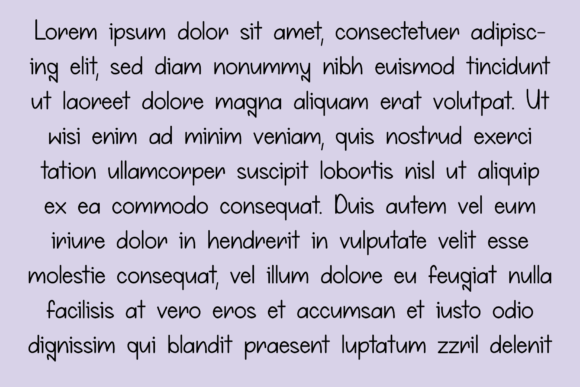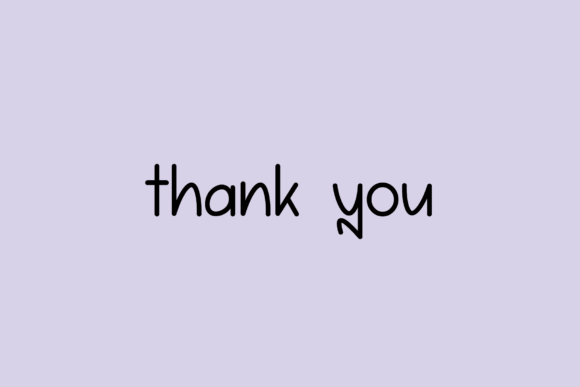
The Ultimate Guide to Barracuda Font: Adding a Splash of Fun to Your Designs
I’ll never forget the time I was working on a project for a children’s birthday party, and I just couldn’t find the right font to match the playful vibe of the design. The client wanted something fun, friendly, and whimsical, but not too over-the-top. That’s when I stumbled upon Barracuda Font, and it instantly became the perfect fit. In this article, I’ll share my experience with Barracuda Font, its unique features, and how to make the most of it in your designs.
An Honest Review of Barracuda Font
So, what makes Barracuda Font so special? Let’s dive into the good stuff and a few quirks to keep in mind.
What I Love About Barracuda Font
- ✨ Fun and Friendly: Barracuda Font is a handwritten font that exudes a sense of playfulness and approachability. It’s perfect for designs that need a personal touch.
- ✅ Whimsical and Quirky: This font has a unique character that will add a dash of personality to your designs. It’s great for projects that need a bit of whimsy.
- 💡 Highly Versatile: Barracuda Font can be used for a wide range of projects, from children’s party invitations to social media graphics and more.
While Barracuda Font is an excellent choice for many projects, there are a few things to keep in mind:
- 🤔 Limited Formality: Due to its playful nature, Barracuda Font may not be the best fit for formal or professional projects that require a more serious tone.
- ⚠️ Legibility at Small Sizes: Like many handwritten fonts, Barracuda Font can become a bit tricky to read at very small sizes. Make sure to test it at different sizes to ensure it works for your project.
The Backstory of Barracuda Font
Barracuda Font was designed with the intention of creating a fun, yet elegant handwritten font. The designer wanted to capture the essence of a carefree, playful spirit that’s perfect for a wide range of projects. While the exact backstory might be fictional, it’s clear that Barracuda Font has become a beloved choice among designers and crafters.
| Font Name | Barracuda Font |
Q: Is Barracuda Font difficult to read?
A: While Barracuda Font is a handwritten font, it’s designed to be legible. However, it may become tricky to read at very small sizes.